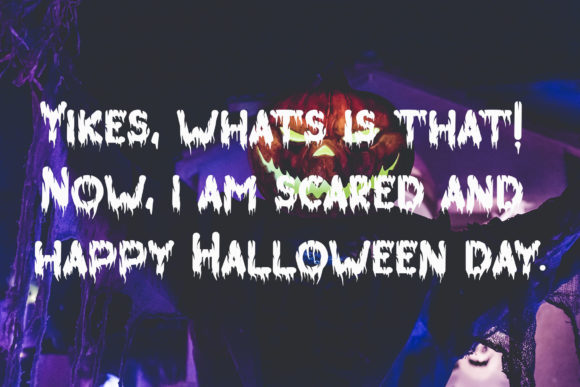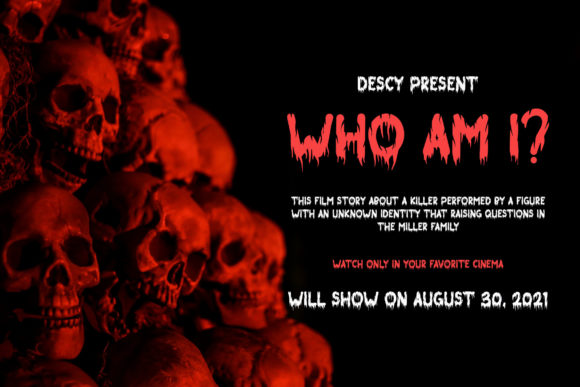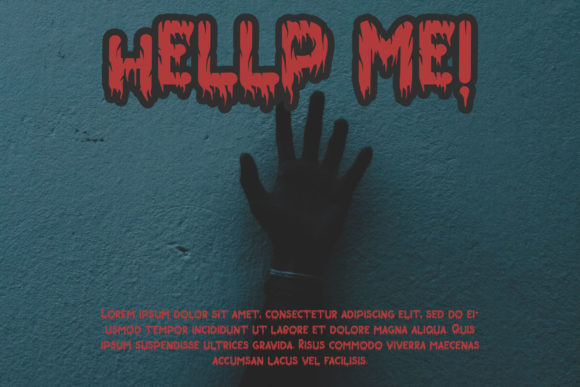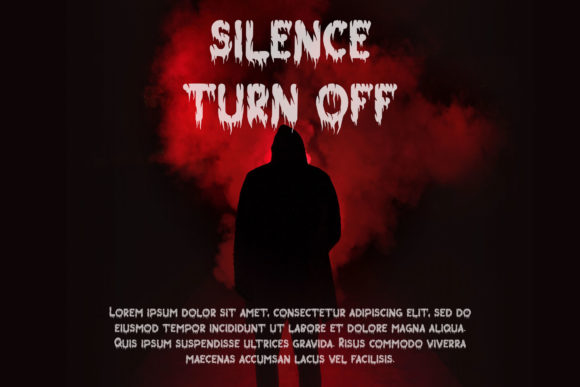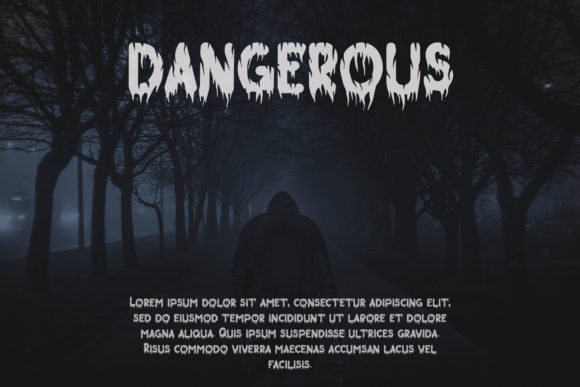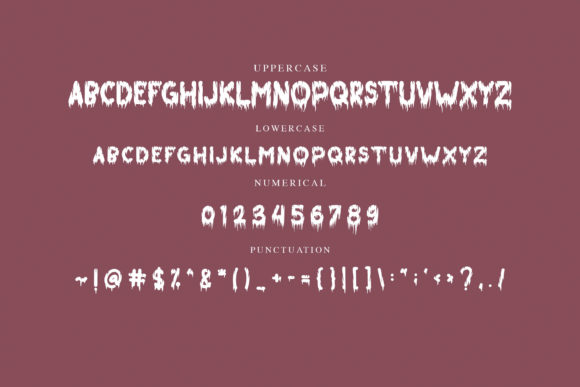
Introducing Halowee Font: The Perfect Addition to Your Halloween-Themed Projects
Are you looking for a font that will add a spooky touch to your Halloween-themed projects? Look no further than Halowee Font! This thick-lettered and creepy display font is perfectly suitable for any Halloween-related project or crafty idea. With Halowee, the only limit is your imagination.
What is Halowee Font?
Halowee Font is a unique and eye-catching display font that is specifically designed to add a touch of spookiness to your projects. Its thick letters and creepy design make it perfect for Halloween-themed projects, such as invitations, posters, and decorations. The font is versatile and can be used for a variety of crafty ideas, from DIY crafts to digital designs.
Key Features of Halowee Font
- Thick-Lettered Design: Halowee Font features thick letters that are bold and eye-catching, making it perfect for display purposes.
- Creepy and Spooky: The font has a creepy and spooky design that is perfect for Halloween-themed projects.
- Versatile: Halowee Font can be used for a variety of crafty ideas, from DIY crafts to digital designs.
Uses of Halowee Font
Halowee Font can be used for a variety of Halloween-themed projects, including:
- Invitations: Create spooky invitations for Halloween parties or events.
- Posters: Design eye-catching posters for Halloween-themed events or promotions.
- Decorations: Use Halowee Font to create spooky decorations, such as signs, banners, or garlands.
- DIY Crafts: Add a touch of spookiness to your DIY crafts, such as Halloween-themed cards, gift tags, or scrapbook pages.
- Digital Designs: Use Halowee Font to create spooky digital designs, such as social media graphics, blog posts, or email newsletters.
Tips for Using Halowee Font
Here are some tips for using Halowee Font:
- Use it Sparingly: Use Halowee Font sparingly to add a touch of spookiness to your projects. Overusing the font can make your project look cluttered and overwhelming.
- Pair it with Other Fonts: Pair Halowee Font with other fonts to create a unique and interesting design.
- Experiment with Colors: Experiment with different colors to add a touch of personality to your project.
- Have Fun: Most importantly, have fun with Halowee Font! The font is designed to be playful and spooky, so don’t be afraid to get creative.
Halowee Font is a unique and eye-catching display font that is perfect for Halloween-themed projects. Its thick letters and creepy design make it a great addition to any crafty idea. With its versatility and ease of use, Halowee Font is a must-have for designers and crafters looking to add a touch of spookiness to their projects. So why wait? Download Halowee Font today and let your imagination run wild!